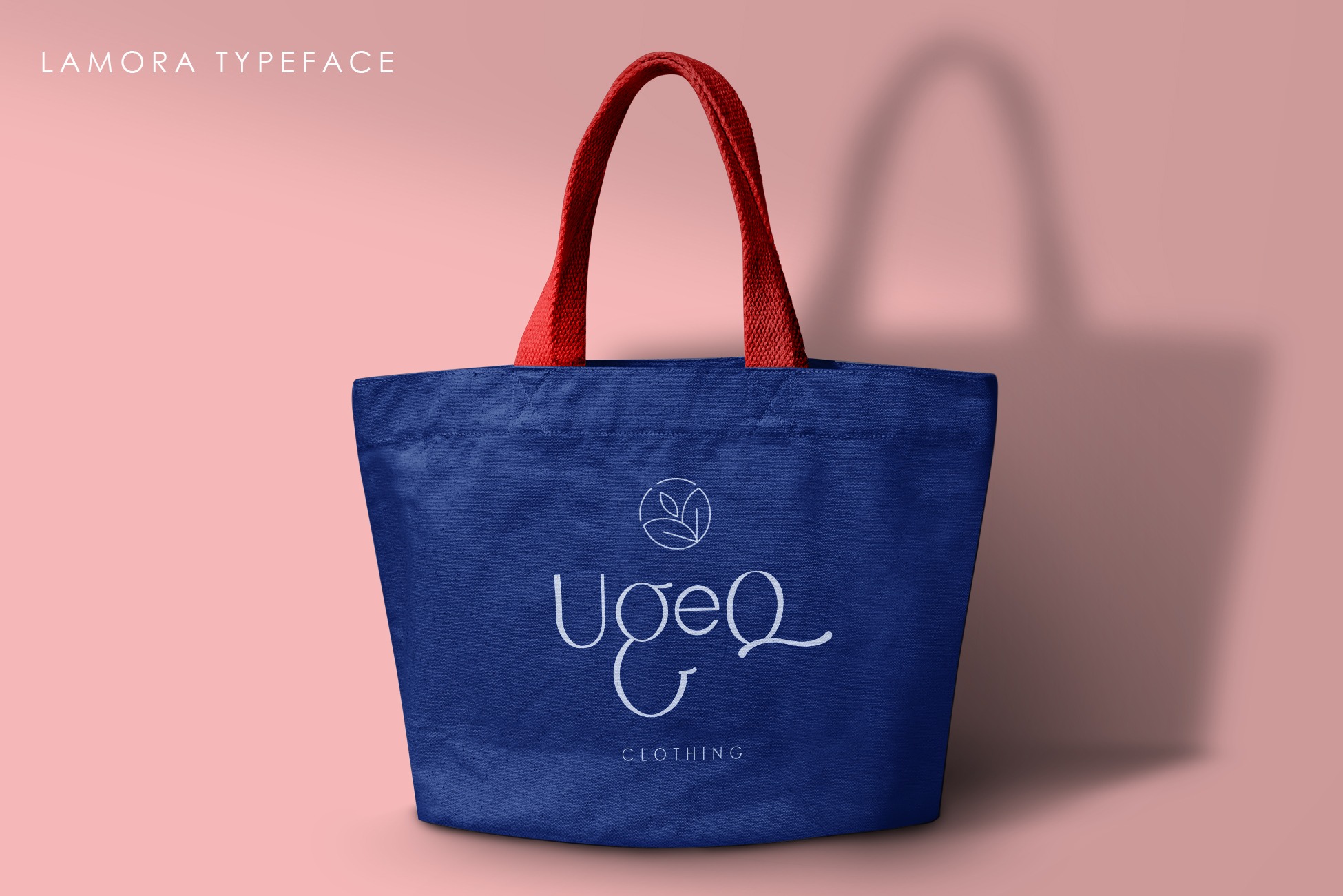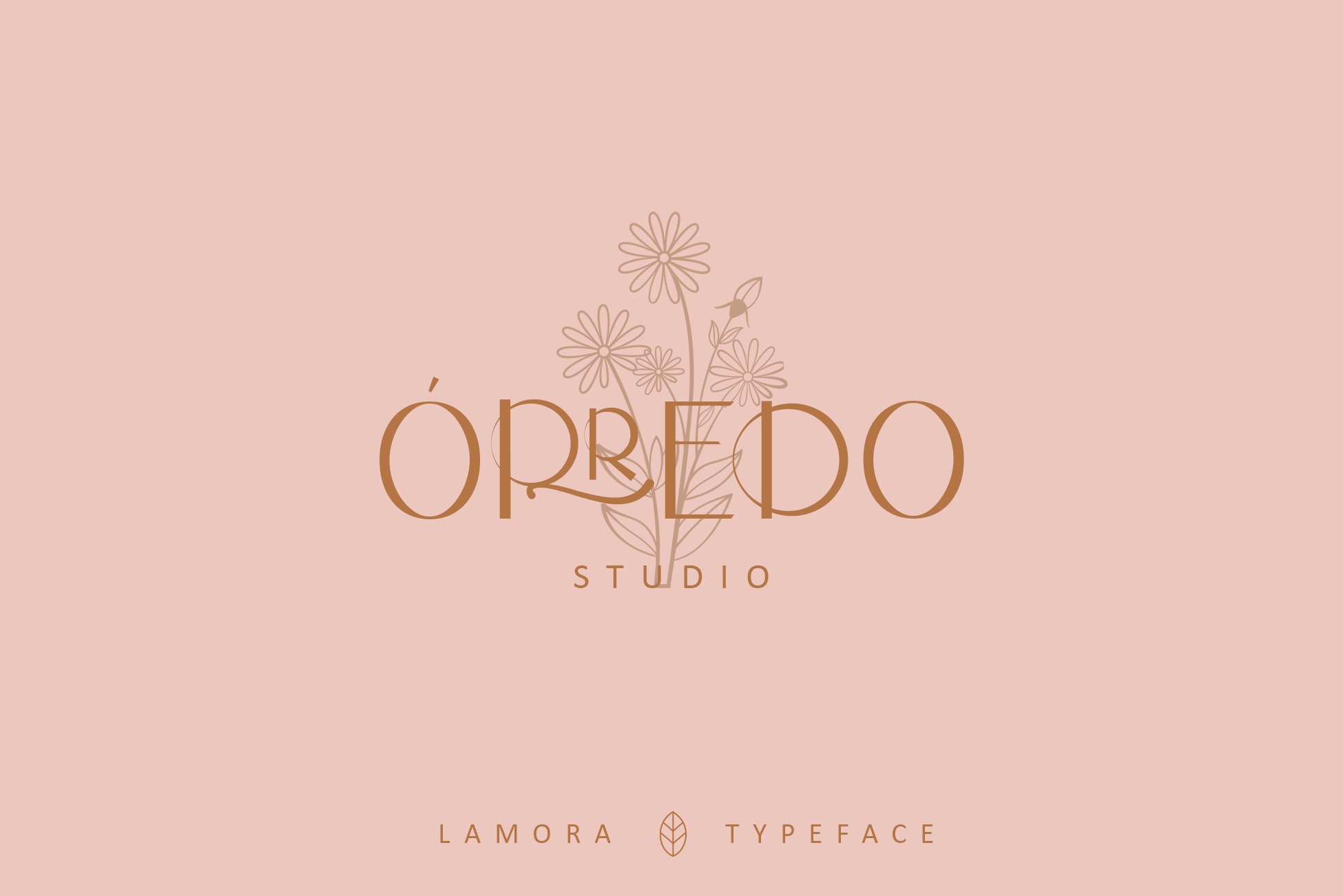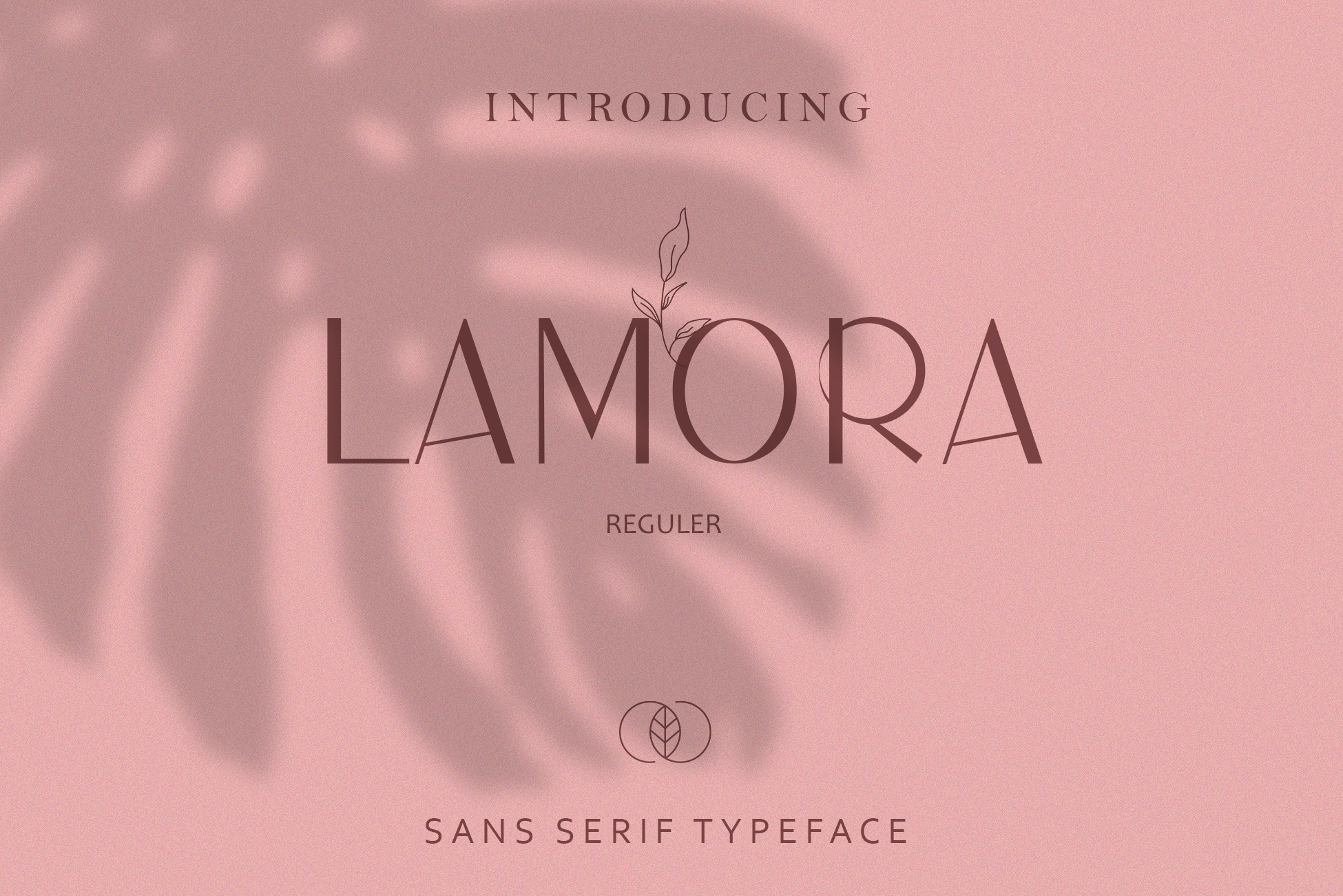
Lamora Sans Serif Font
This typeface designed by Andri nayoan is a modern sans serif font that will bring you a touch of elegance to any project. It will add a luxury spark to any design project that you wish to create! Add it confidently to your favorite creations and let yourself be amazed by the outcome generated.